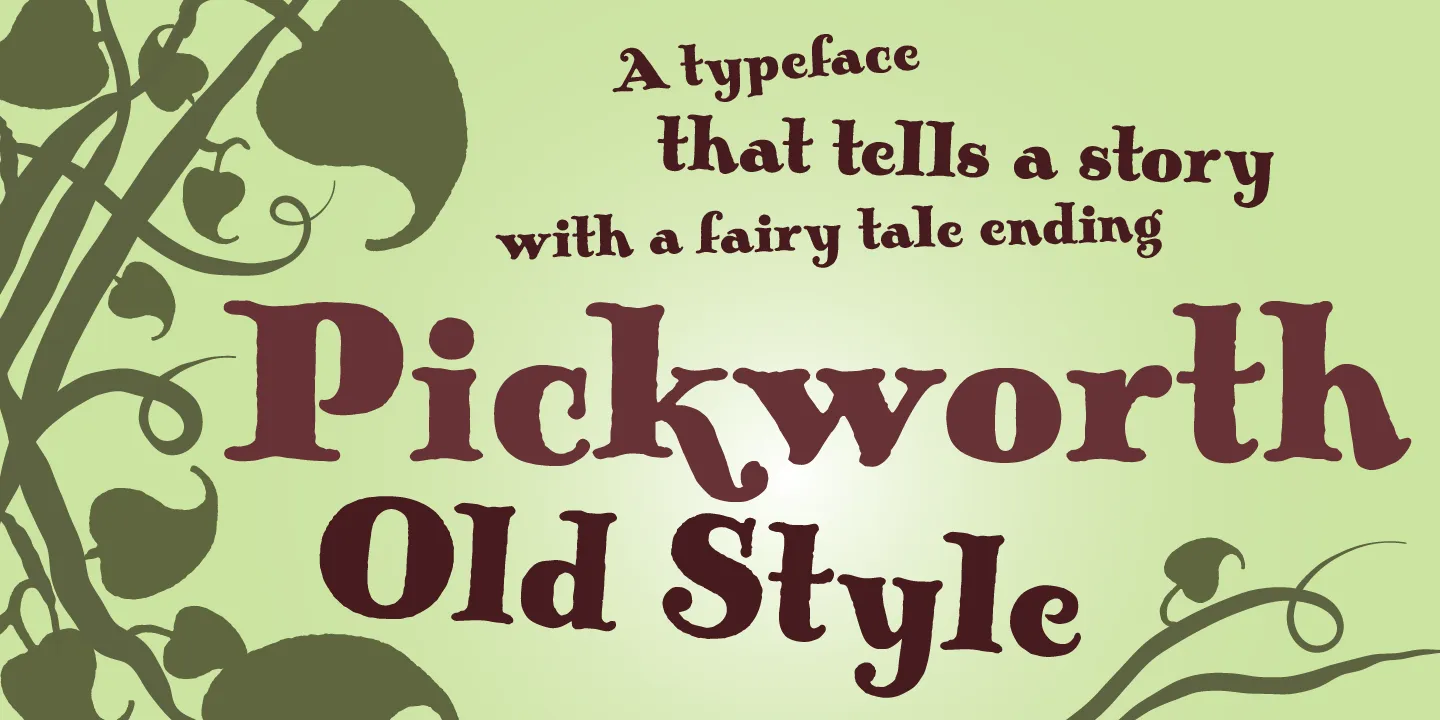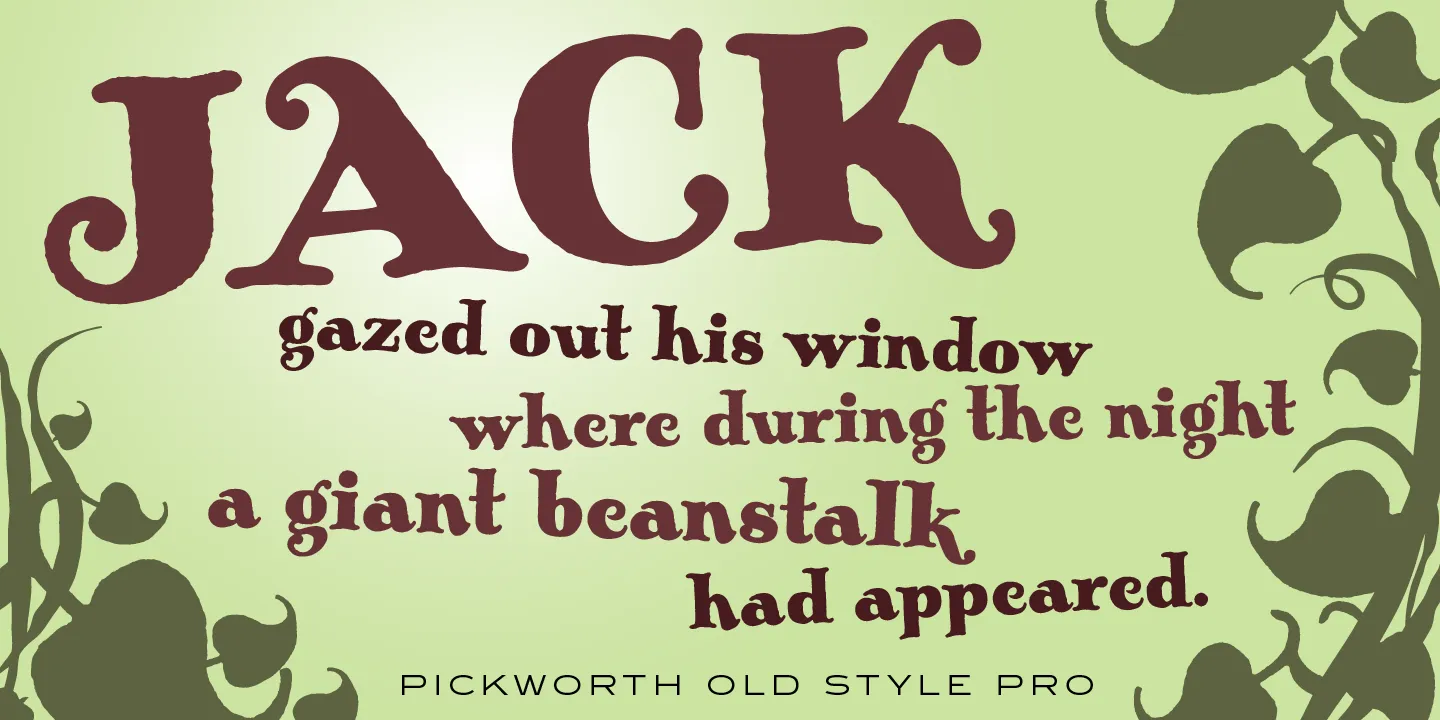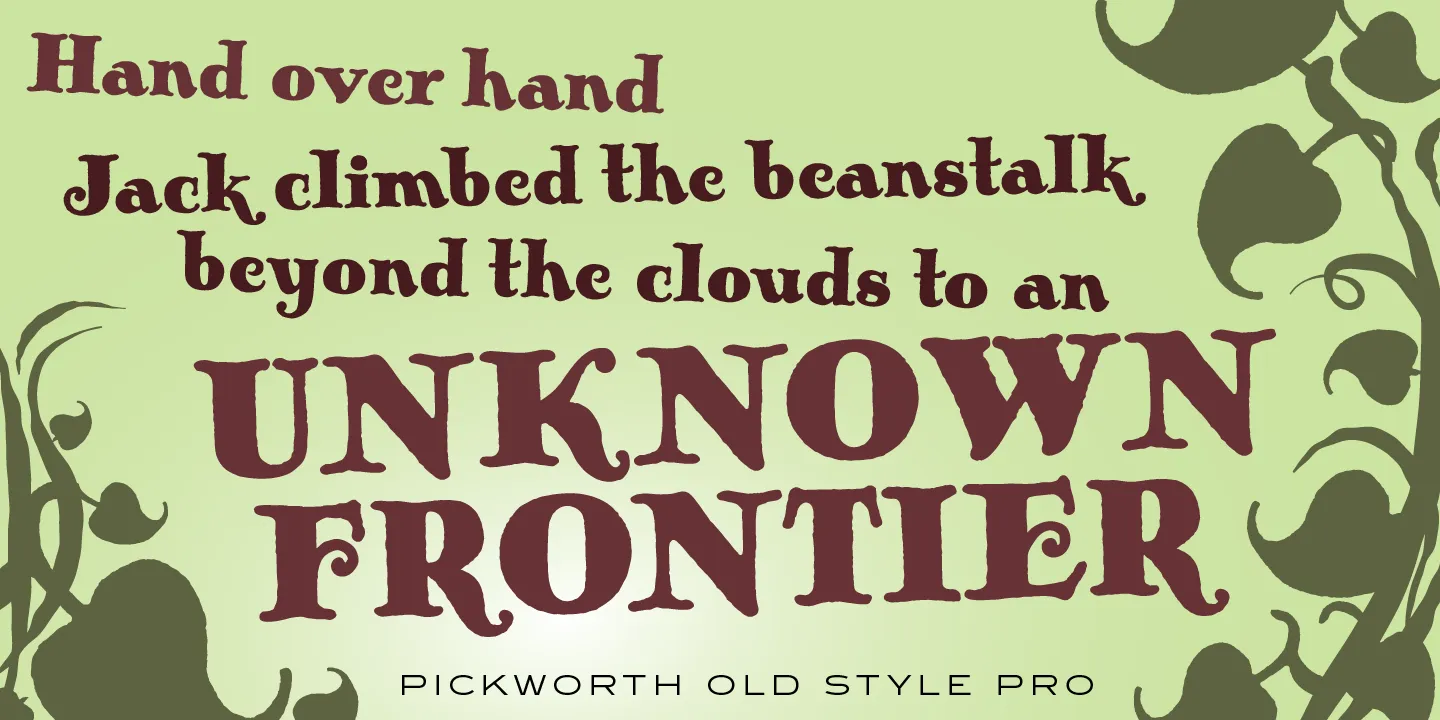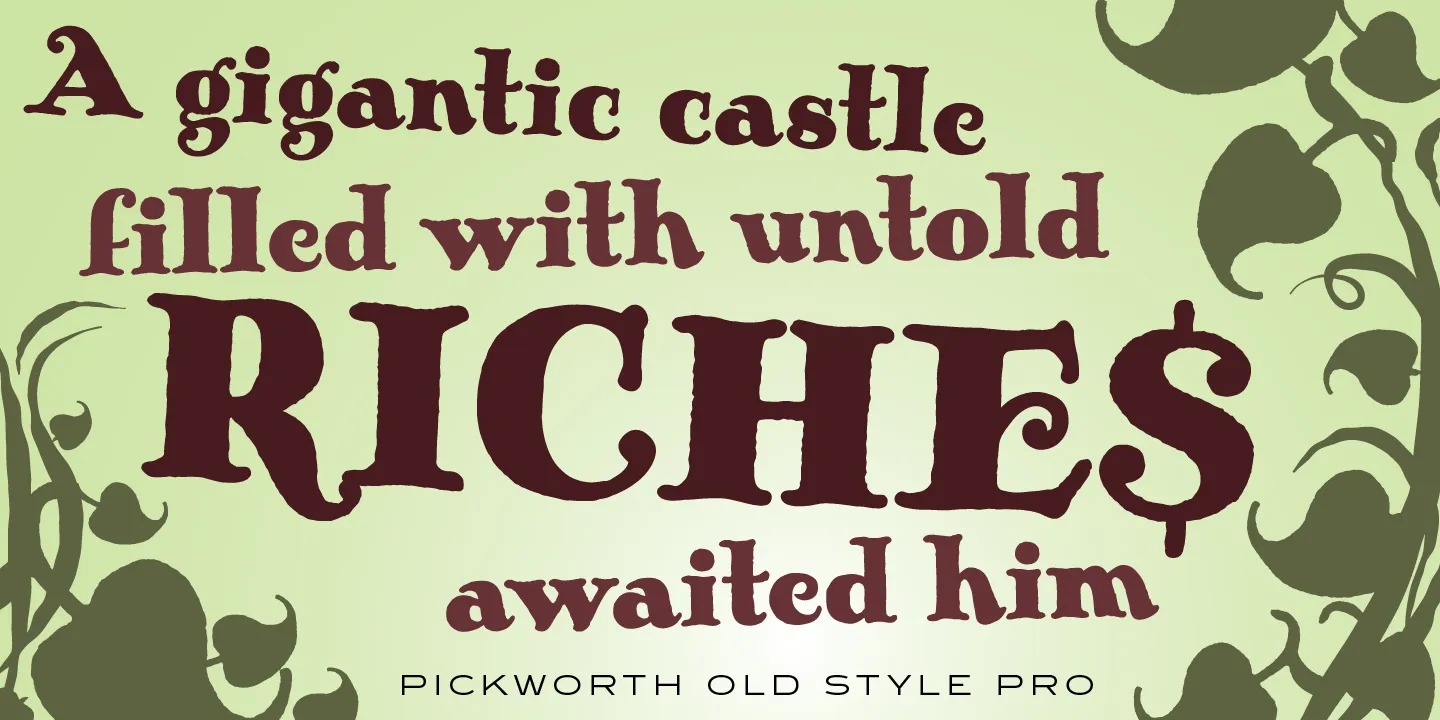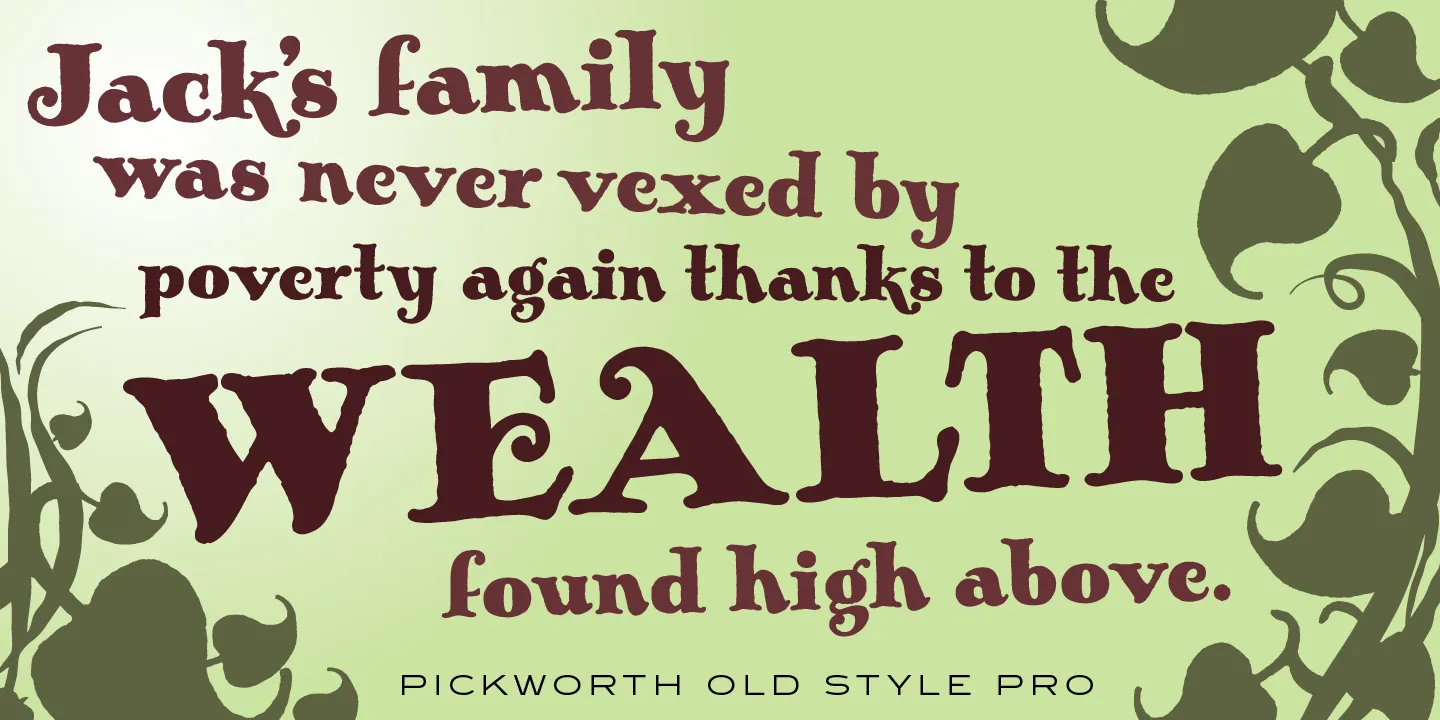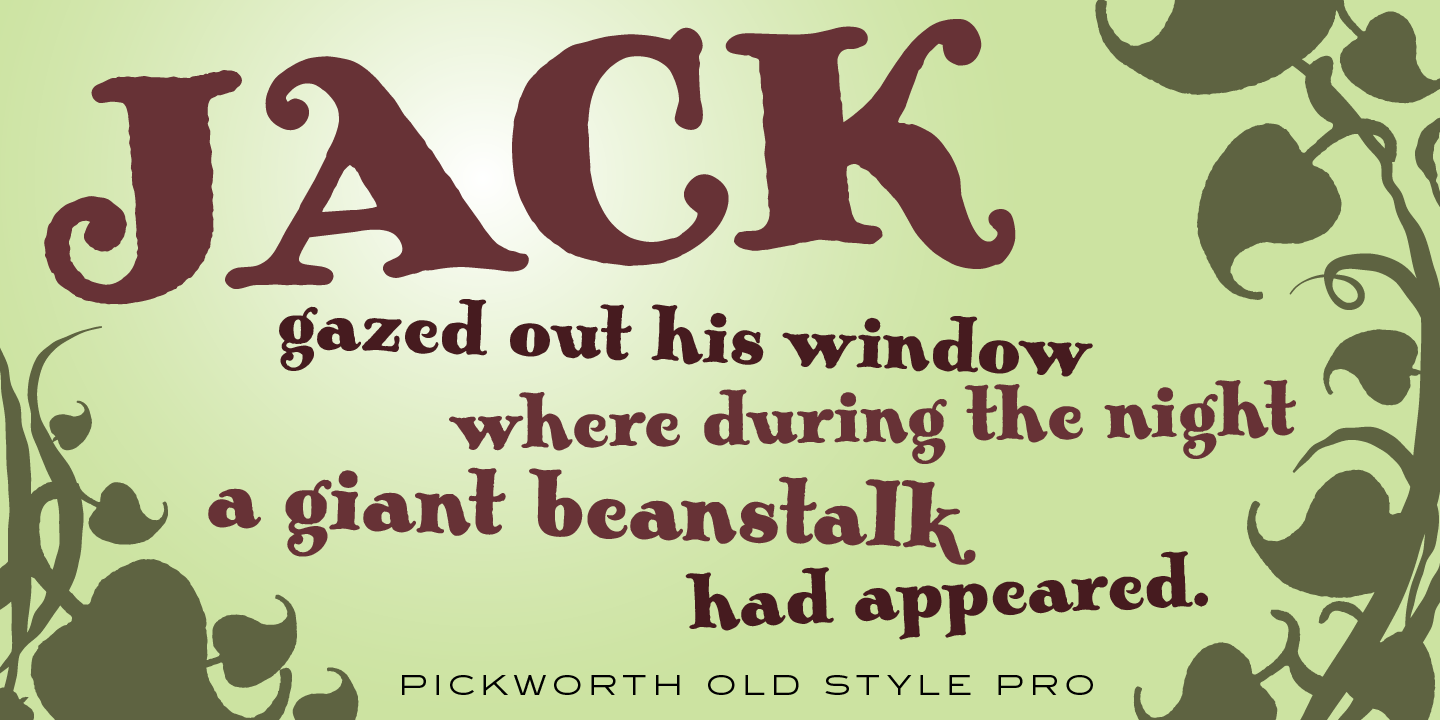
Pickworth Old Style Fonts
Pickworth Old Style is a decorative typeface designed in 2010 by Steve Jackaman and Ashley Muir exclusively for the Red Rooster Collection. It is loosely inspired by an ancient metal typeface called Antique No. 14. The calligraphic and short-stroke characteristics of Pickworth Old Style give it a unique antique, rustic, and mystical appearance.
OpenType Features
• Common Ligatures
• Fractions
• Ordinal Numerals
• Stylistic Alternates
• Stylistic Sets
• Subscript
• Superscript